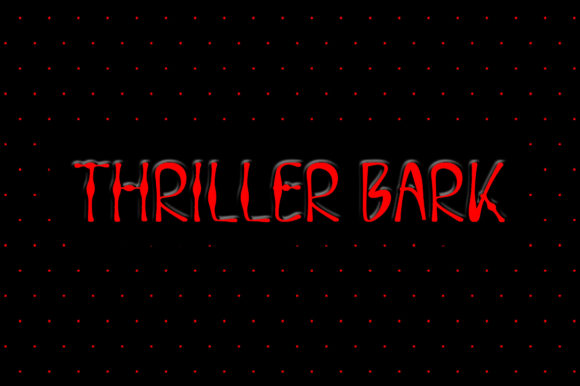
Journey into the realm of the supernatural with Thriller Bark Font, a display font that exudes an aura of mystery and intrigue. Crafted by the talented aprianaart, this font is a visual masterpiece that will cast a spell on your designs.
Unleash your creativity with Thriller Bark Font, the perfect font for crafting logos, posters, flyers, and any project that demands a touch of the macabre. Its two-color design adds a layer of depth and dimension, making your words leap off the page.
Step into the shadows and embrace the eerie allure of Thriller Bark Font. Let its spooky charm weave its magic, transporting your audience to a realm of enchantment and wonder. Dare to be different, dare to be bold, and let Thriller Bark Font be your guide through the darkness.
Whether you're a seasoned designer or just starting, Thriller Bark Font is the key to unlocking your creative potential. Its user-friendly design makes it accessible to all, while its versatility ensures that your designs will always stand out from the crowd.